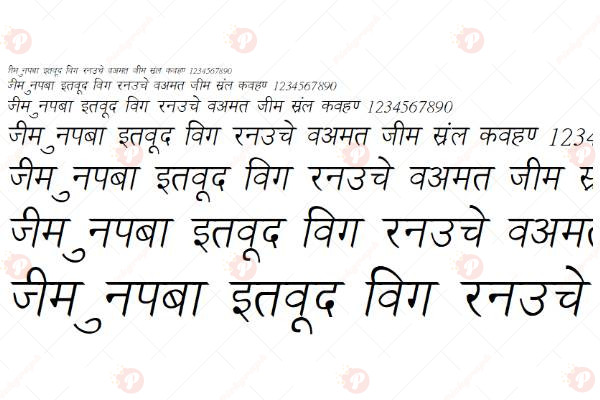
The New Delhi Italic Font brings a graceful slant to Devanagari typography, offering a stylish and expressive look for Hindi, Sanskrit, Marathi, and Nepali text.
Ideal for invitations, festival posters, book covers, banners, and social media graphics, this font adds motion and elegance to your designs while keeping the authentic Devanagari style intact. Its flowing italic style ensures readability and modern flair, making it perfect for both traditional and contemporary projects.
Supported Script: Devanagari (Hindi / Sanskrit / Marathi / Nepali)
Font Style: Italic / Slanted / Traditional Typeface
| Optimum Size | Large (Display / Poster) |